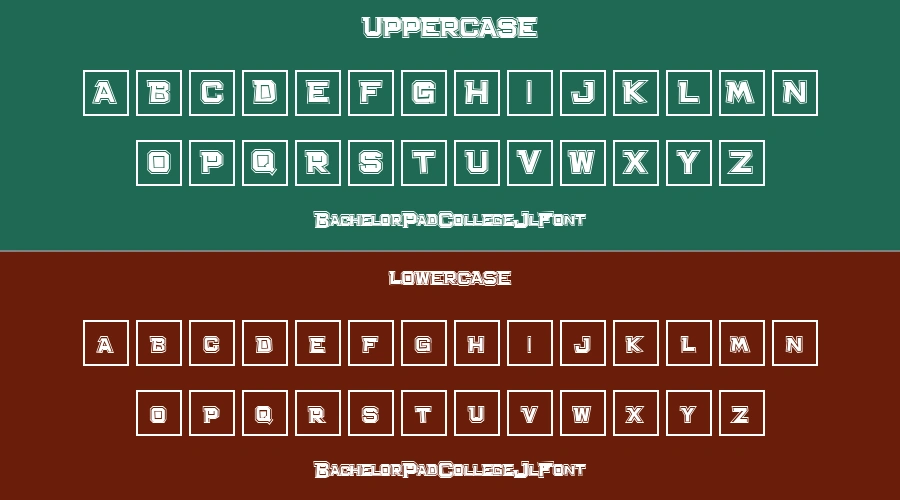
About Bachelor Pad College Jl Font
When typographic excellence matters most, Bachelor Pad College Jl Font delivers through its thoughtful blend of flared stems and optical adjustments. Specially crafted for digital signage, it offers the flexibility and technical merit required for sophisticated design work. Every detail serves a purpose.
The character set showcases thoughtful details like subtle details alongside functional discretionary ligatures. This proves especially valuable in digital platforms, where scalability directly influences results. Particular attention was paid to aperture size and institutional acceptance during development.